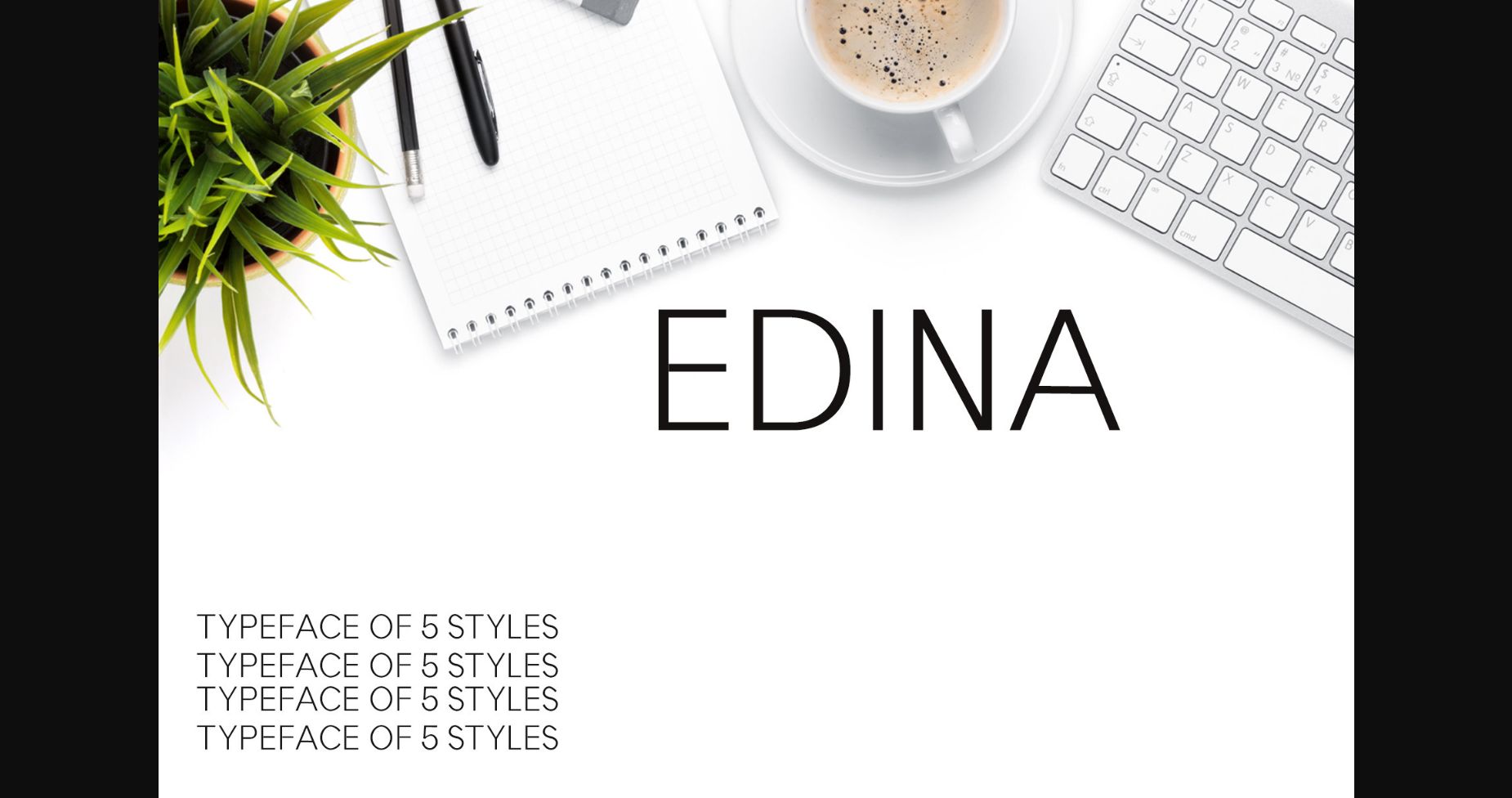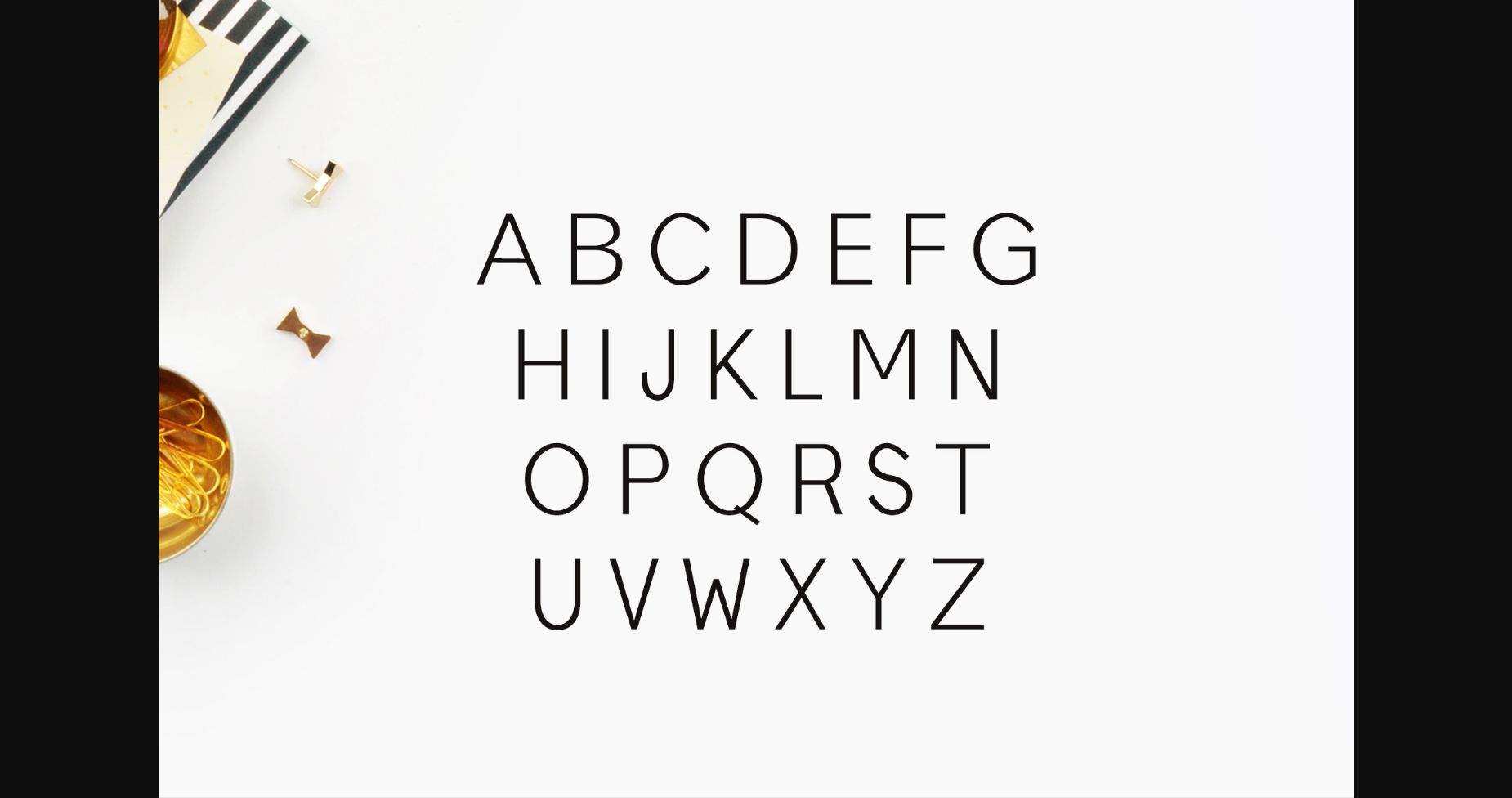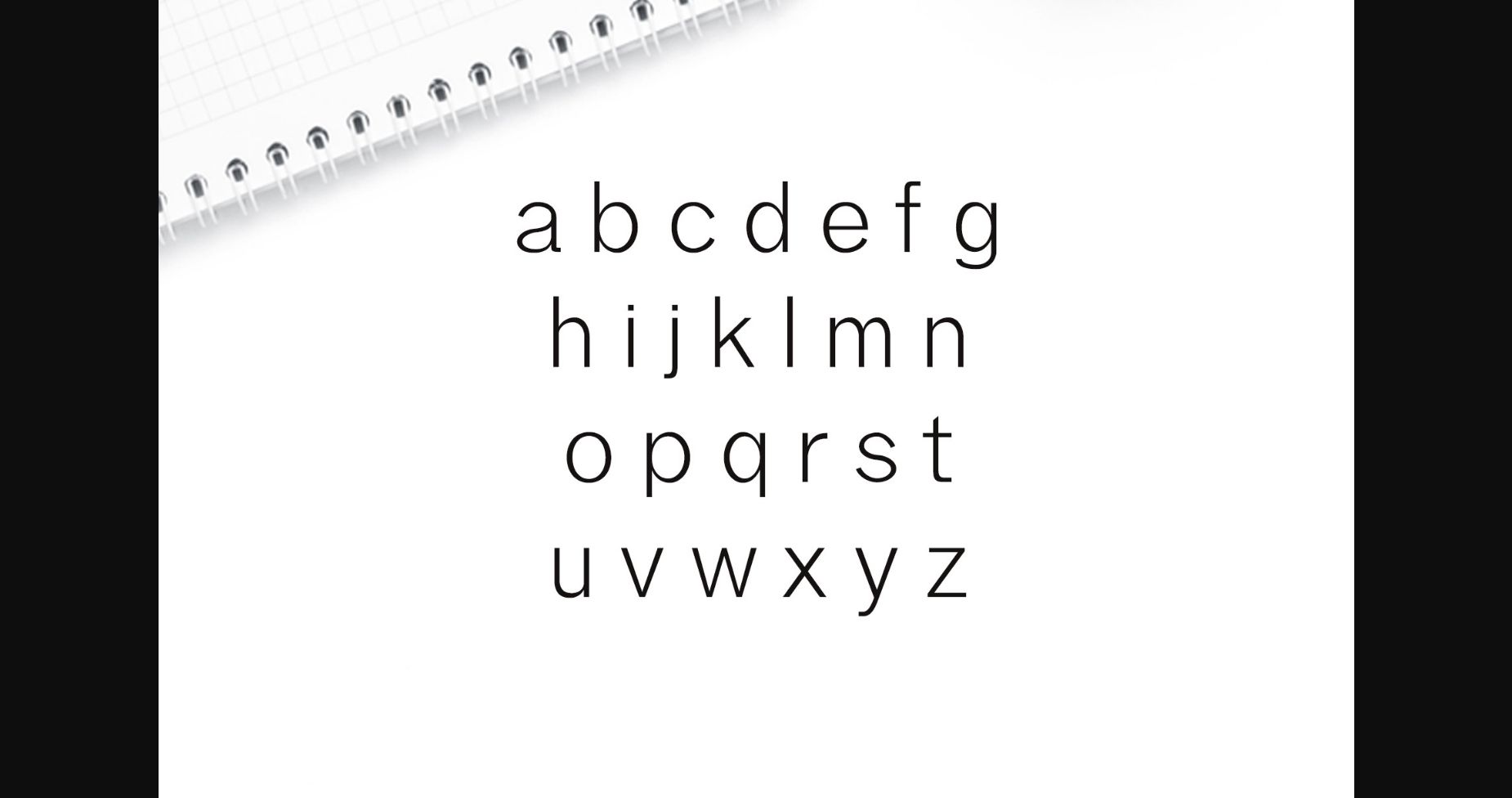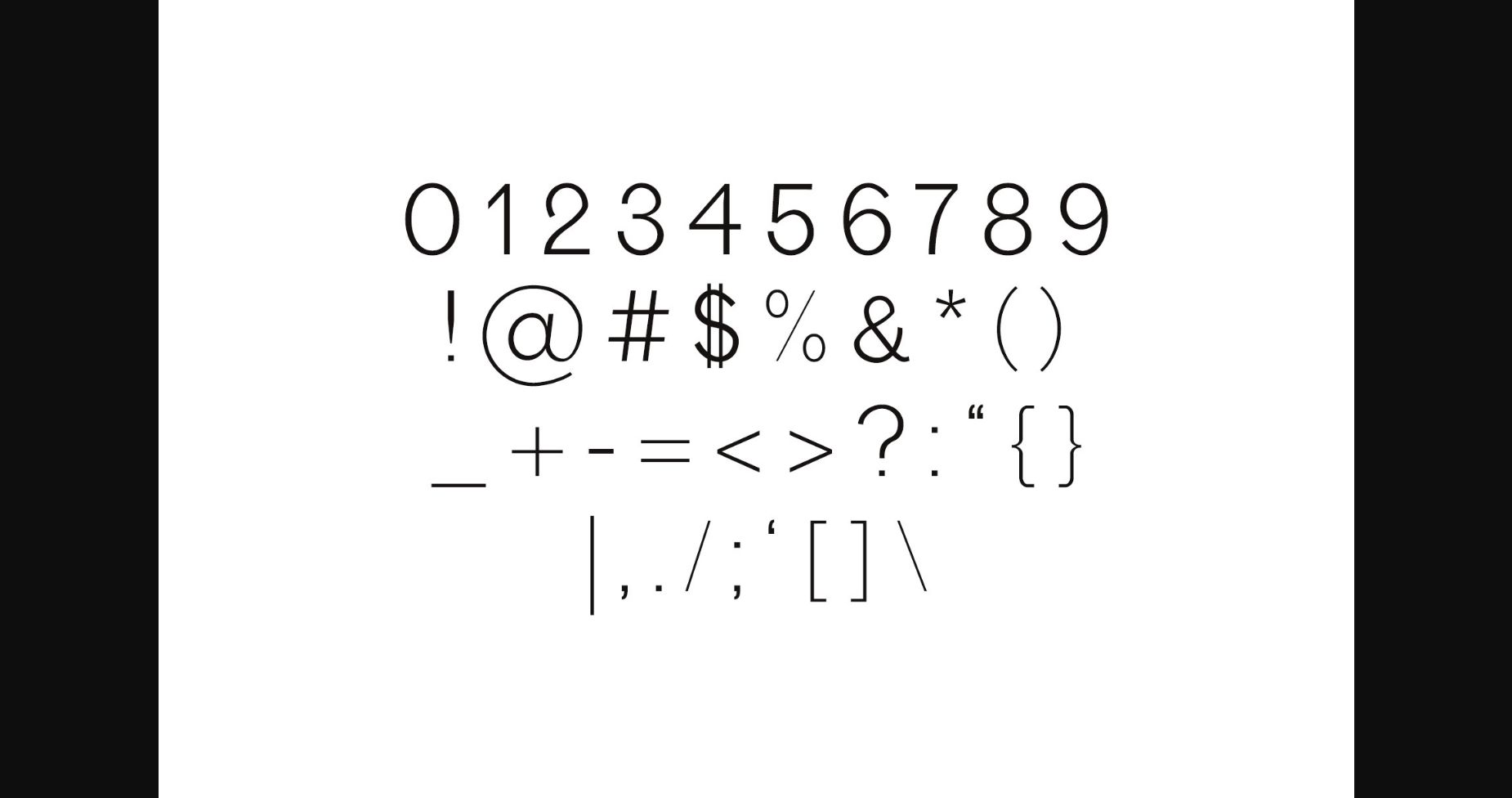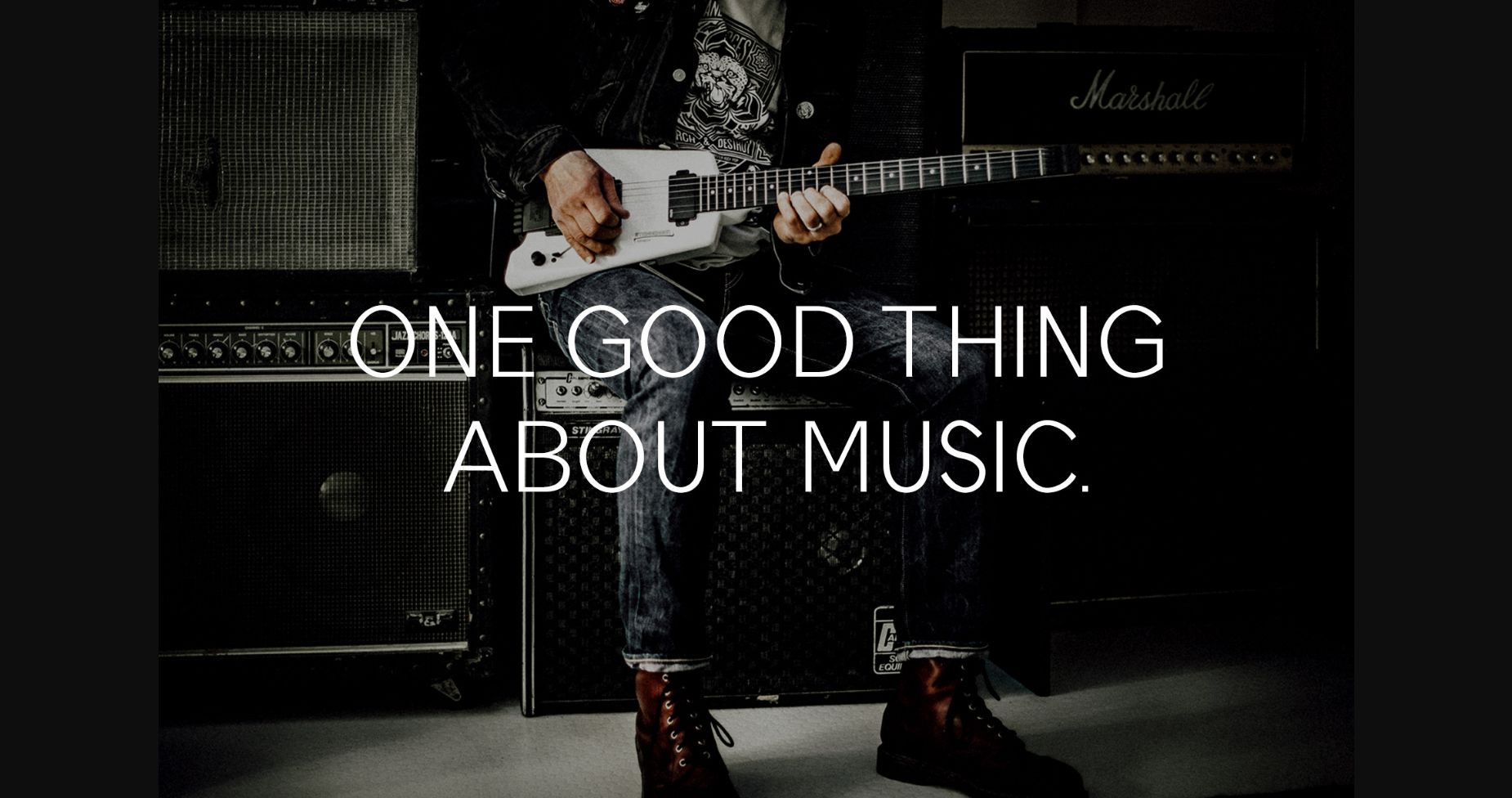
About Edina Font
Edina is a clean and significantly modern sans serif font that pairs beautifully with other typography or projects. Use it for packaging, name tags, headlines, magazines, business cards, banners, or more beautiful creations.